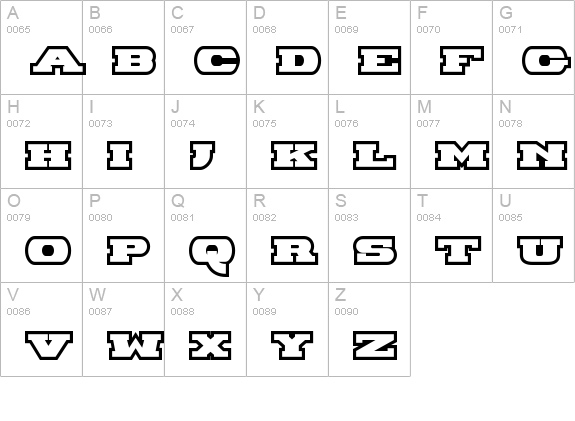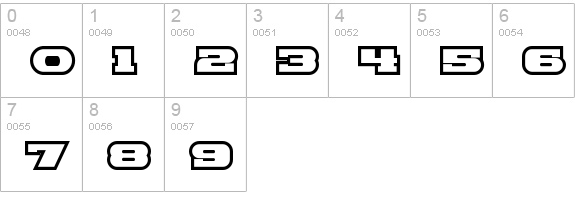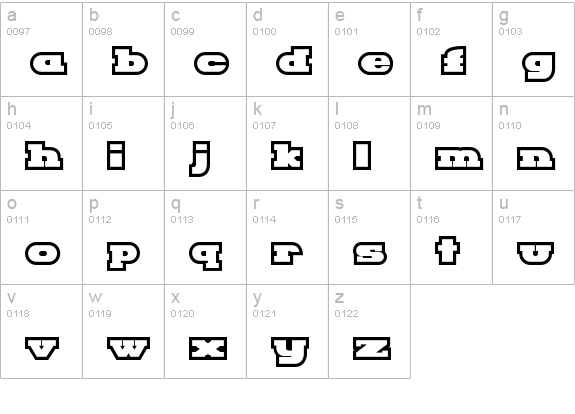
Hackney Block Outline Font Details
Introducing Hackney Block Outline, a stunning display font that will make your designs stand out from the crowd. This unique typeface combines bold, blocky letterforms with a sleek, modern outline, creating a captivating visual effect that is both eye-catching and contemporary. Hackney Block Outline is perfect for a variety of design projects, from logos and branding to posters and headlines. Its strong, geometric structure adds a sense of strength and stability, while the outlined style adds a touch of sophistication and elegance. But what truly sets Hackney Block Outline apart is its accessibility. This font is available for free download at FontsMarket.com, making it a fantastic option for designers on a budget or anyone looking to add a touch of creativity to their projects without breaking the bank. With its wide range of characters and versatile design, Hackney Block Outline offers endless possibilities for customization and experimentation. Whether you're working on a bold and edgy project or aiming for a more refined and minimalist aesthetic, this font has got you covered. So why wait? Download Hackney Block Outline today and unlock a world of creativity and visual impact. Get ready to elevate your designs to the next level with this exceptional typeface.